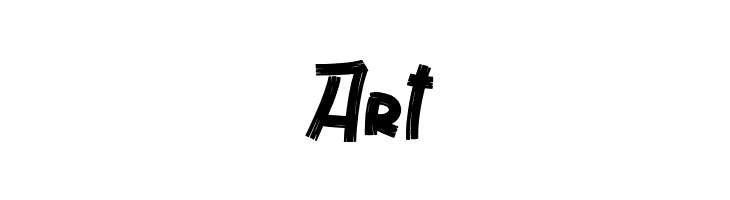
( Fonts by dcoxy )
A dynamic and flowing script font with elegant, slanted letterforms.
( Fonts by dcoxy )
A flowing, cursive script font with elegant, interconnected letters.
( Fonts by dcoxy )
A bold, hand-drawn font with a brush-like texture and dynamic style.
( Fonts by dcoxy )
A bold, brush-style script font with dynamic strokes and artistic flair.
( Fonts by Lorenzowy )
A bold, expressive handwritten font with dynamic strokes and a playful style.
( Fonts by dcoxy )
A bold, dynamic brush script with expressive strokes and a hand-painted look.
A geometric and artistic font with thin, angular lines and a modern twist.
A bold, angular font with a futuristic, geometric design.
A clean, modern font with geometric shapes and uniform stroke width.
An elegant, elongated font with thin strokes and high contrast, perfect for modern designs.